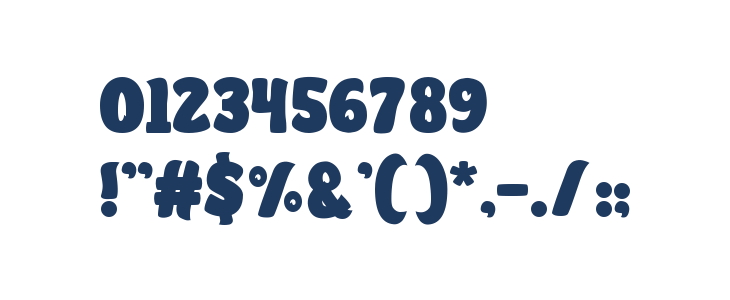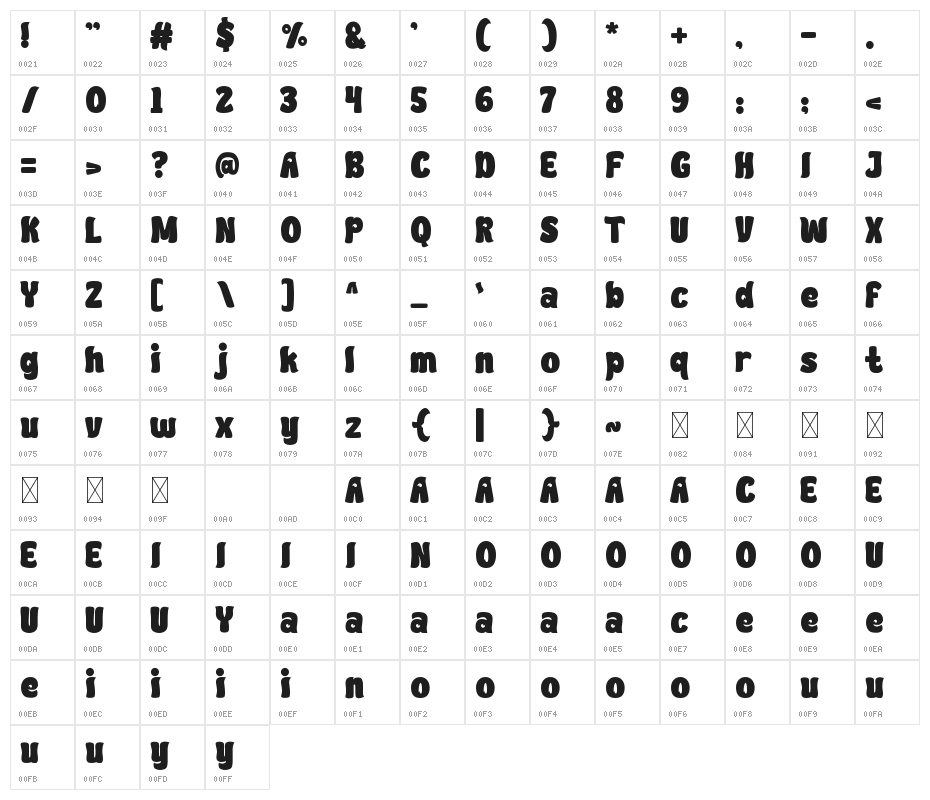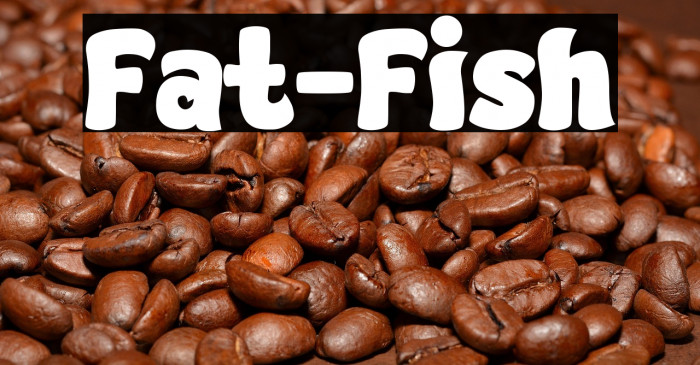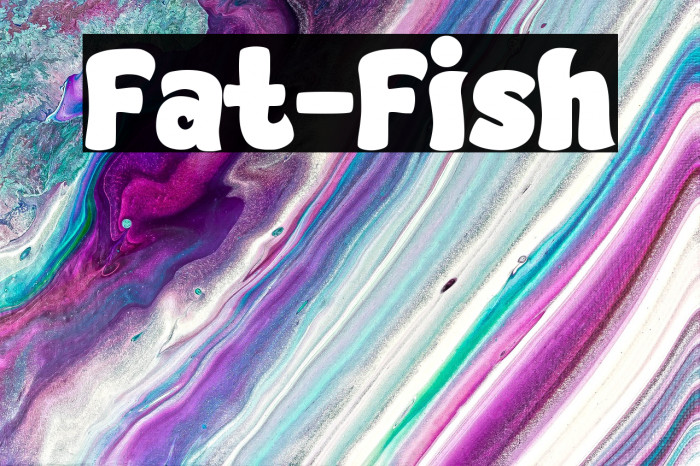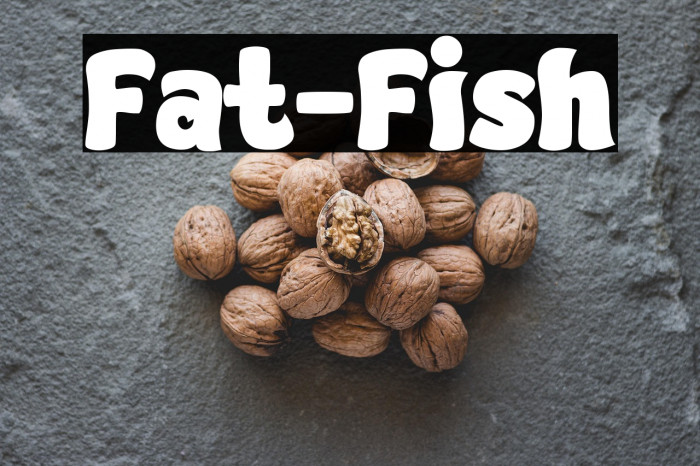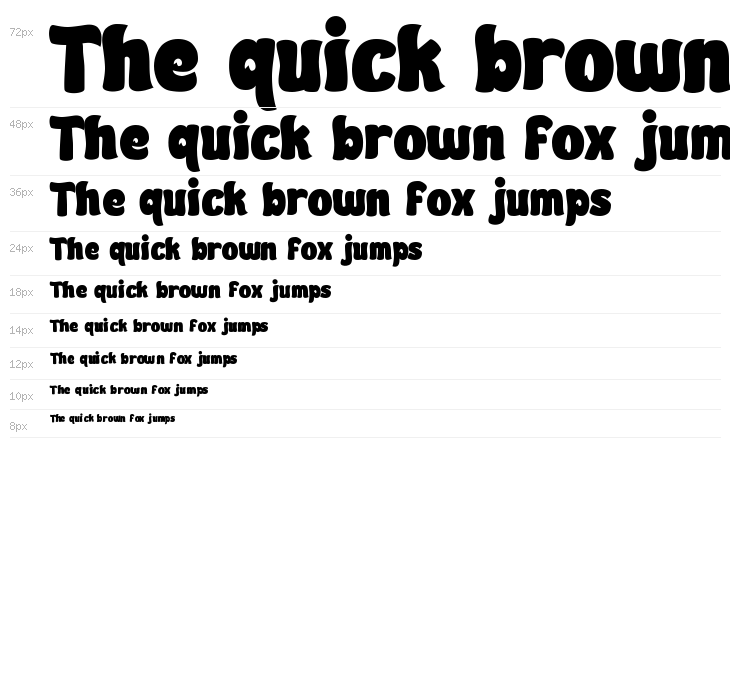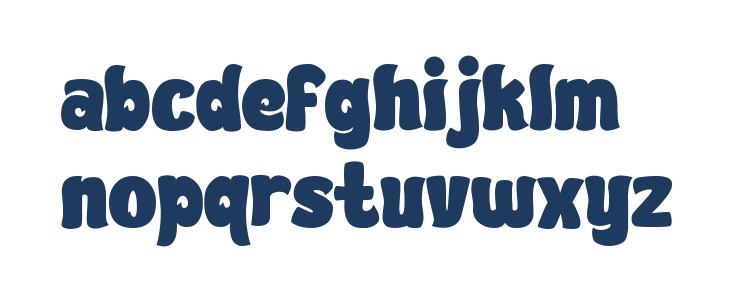
Fat-Fish Font
Fat-Fish Description
This font features a bold, playful style with thick, rounded strokes that give it a friendly and approachable appearance. The characters are generously spaced, enhancing readability while maintaining a whimsical charm. Its exaggerated curves and soft edges make it ideal for capturing attention and conveying a sense of fun and creativity. The font's design is consistent across uppercase, lowercase, numbers, and special characters, ensuring a cohesive look in any application. Its unique style is perfect for projects that require a touch of personality and flair.
| Overall Style | Playful, Fun, Creative |
| Proposed Projects | Ideal for children's books, playful branding, party invitations, and creative posters. |